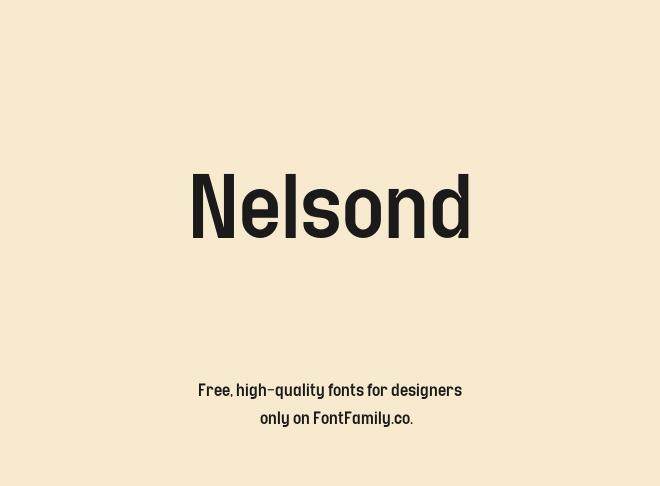
Nelsond Font
Nelsond Font, created by Nelson Design Studio, is a unique font with a modern and decorative style. Released in 2017, it captivates with its distinctive character, making it a perfect choice for display purposes. Its modern aesthetic makes it an excellent fit for branding, logos, posters, and digital designs. Compared to other fonts, Nelsond Font stands out for its creative design, which merges simplicity with sophistication. The font is free for personal use, adding to its appeal for designers and artists. With its unique style, Nelsond Font can bring a fresh and modern feel to any design project, making it a go-to choice for those wanting to add an innovative touch to their work.